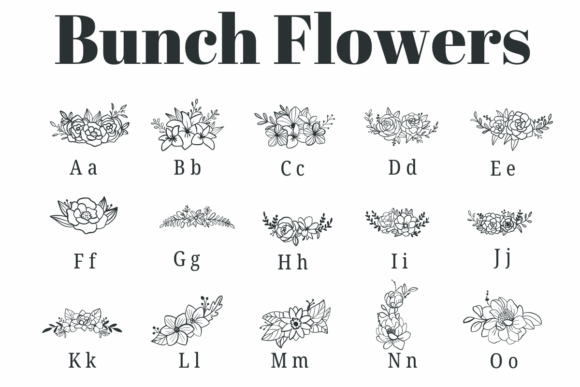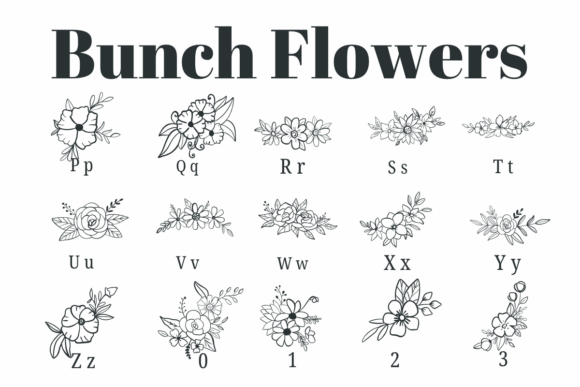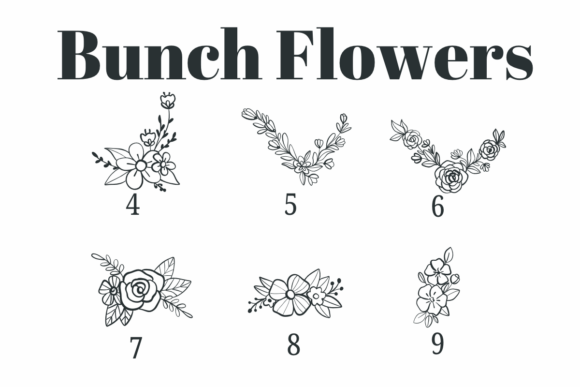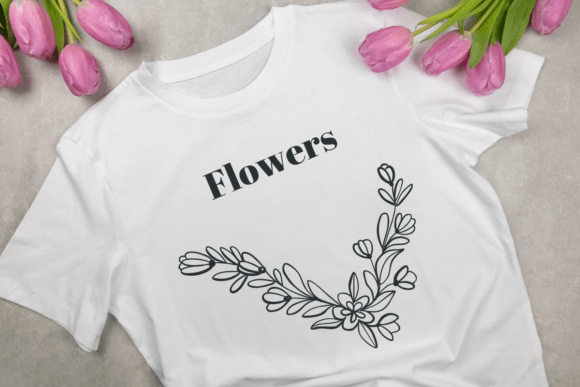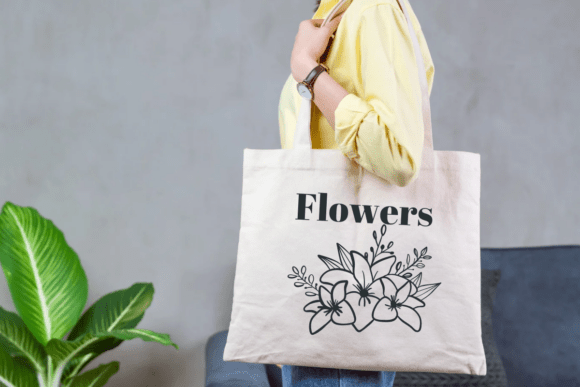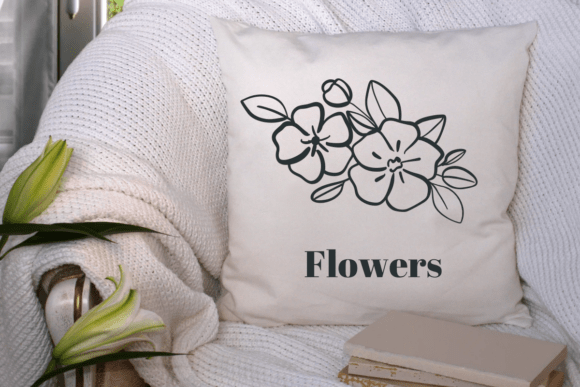
Bunch Flowers Font: A Delightful Dingbats Font for Creative Minds
Are you a designer, crafter, or DIY enthusiast looking for a unique and charming font to add a personal touch to your projects? Look no further than Bunch Flowers, a lovely dingbats font that’s sure to inspire your creativity. In this article, we’ll explore the features and benefits of Bunch Flowers, and show you how to make the most of this delightful font.
What is Bunch Flowers Font?
Bunch Flowers is a dingbats font that features beautiful, hand-drawn illustrations of flowers, leaves, and other botanical elements. The font is designed to be used in a variety of creative projects, from paper crafting and scrapbooking to digital design and illustration. With its delicate and charming designs, Bunch Flowers is perfect for adding a touch of elegance and whimsy to your work.
Key Features of Bunch Flowers Font
- Unique and exclusive designs: Bunch Flowers features a wide range of unique and exclusive designs, including flowers, leaves, stems, and other botanical elements.
- Hand-drawn illustrations: Each design in Bunch Flowers is carefully hand-drawn, giving the font a personal and charming feel.
- Scalable: The font is highly scalable, allowing you to use it in projects of all sizes, from small icons to large posters.
Benefits of Using Bunch Flowers Font
So why should you choose Bunch Flowers for your next project? Here are just a few benefits of using this lovely font:
- Add a personal touch: With Bunch Flowers, you can add a personal touch to your projects, making them stand out from the crowd.
- Inspire your creativity: The charming designs in Bunch Flowers are sure to inspire your creativity, helping you to come up with new and innovative ideas.
- Perfect for crafters and designers: Bunch Flowers is a perfect fit for crafters and designers who want to add a touch of elegance and whimsy to their work.
- Versatile: The font can be used in a wide range of projects, from digital design to paper crafting and scrapbooking.
How to Use Bunch Flowers Font
Using Bunch Flowers is easy! Here are a few tips to get you started:
Creative Ideas for Using Bunch Flowers Font
Here are a few creative ideas for using Bunch Flowers:
- Paper crafting and scrapbooking: Use Bunch Flowers to add a personal touch to your paper crafting and scrapbooking projects.
- Digital design: Use the font to create beautiful digital illustrations, icons, and graphics.
- Stationery and gift tags: Add a touch of elegance to your stationery and gift tags with Bunch Flowers.
- Web design: Use the font to add a personal touch to your website or blog.
In conclusion, Bunch Flowers is a lovely dingbats font that’s perfect for designers, crafters, and DIY enthusiasts. With its unique and exclusive designs, hand-drawn illustrations, and ease of use, Bunch Flowers is sure to inspire your creativity and add a personal touch to your projects. So why not give it a try and see what beautiful creations you can come up with?